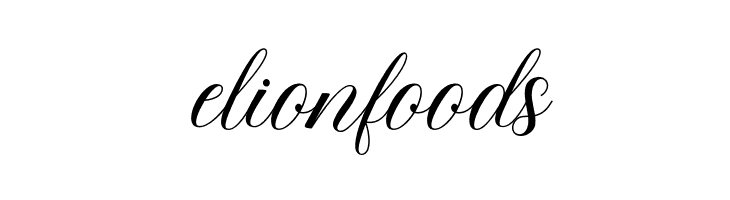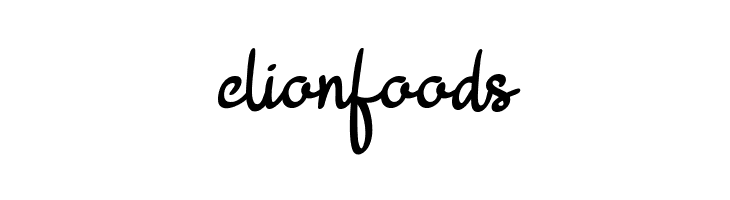
A flowing, cursive font with elegant loops and swashes, offering a handwritten appearance.
An elegant and sophisticated script font with flowing, interconnected letters.
An elegant script font with flowing, ornate cursive letters.
A playful and casual handwritten font with fluid, slightly irregular strokes.
A dynamic, expressive handwritten font with sharp, elongated strokes.
A modern, elongated font with a sleek and sophisticated style.
A decorative, double-line font with a modern and geometric style.
An elegant script font with intricate loops and swirls, perfect for artistic projects.
A modern, elegant script font with high contrast and flowing cursive letters.
Illustrative font with beauty and salon icons for each character.